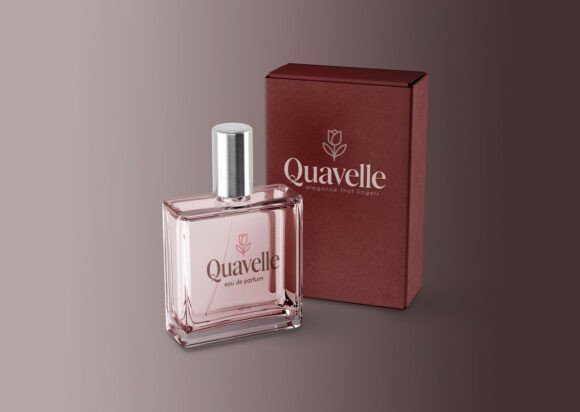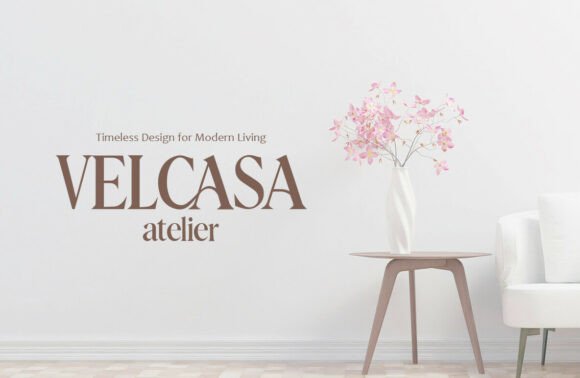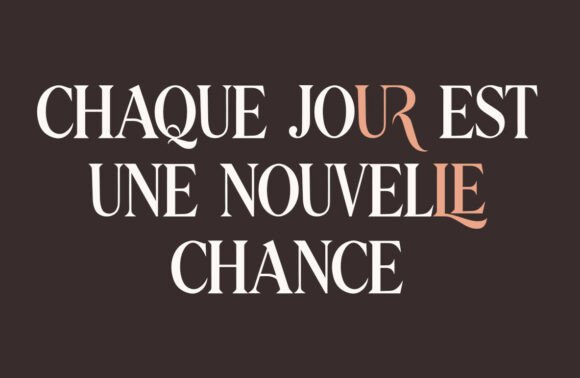
Introducing Arthivea Font: Elevate Your Design with Elegance and Sophistication
In the world of typography, a well-crafted font can make all the difference in elevating a design from ordinary to extraordinary. Arthivea, a modern serif typeface, is a stunning example of elegance, balance, and contemporary sophistication. This exquisite font is designed to bring a touch of luxury and refinement to any design project, making it perfect for discerning designers and crafters.
The Art of Arthivea: A Perfect Blend of Classic and Modern
Arthivea’s design is characterized by refined letterforms, graceful curves, and sharp serifs, which blend the classic beauty of serif fonts with a modern editorial touch. The result is a font that exudes timeless sophistication and elegance, making it ideal for high-end design projects. Whether you’re working on luxury branding, fashion labels, perfume packaging, or editorial layouts, Arthivea is the perfect choice for designers who want to convey exclusivity and premium aesthetics.
Key Features of Arthivea Font
- Refined Letterforms: Arthivea’s letterforms are meticulously crafted to convey a sense of elegance and refinement.
- Graceful Curves: The font features smooth, flowing curves that add to its sophisticated and luxurious feel.
- Sharp Serifs: Arthivea’s serifs are carefully designed to provide a precise, high-end look that elevates any design.
- Stylish Character Shapes: The font’s character shapes are designed to create a distinctive and timeless appearance.
Perfect for Luxury Design Projects
Arthivea is specifically designed for designers who want to create high-end designs that exude luxury and exclusivity. Its stylish character shapes and refined letterforms make it perfect for:
- Luxury Branding: Arthivea is ideal for creating high-end brand identities that convey sophistication and elegance.
- Fashion Labels: The font’s modern serif design makes it perfect for fashion labels that want to convey a sense of style and luxury.
- Perfume Packaging: Arthivea’s elegant design makes it a great choice for perfume packaging that requires a sophisticated and high-end look.
- Editorial Layouts: The font is perfect for editorial layouts, such as magazines and newspapers, where a touch of elegance and sophistication is required.
- Logos: Arthivea is a great choice for creating logos that require a distinctive and memorable design.
- Invitations: The font’s refined design makes it perfect for creating elegant and sophisticated invitations.
Why Choose Arthivea Font?
Arthivea offers a unique combination of elegance, sophistication, and versatility, making it an excellent choice for designers and crafters. Here are just a few reasons why you should choose Arthivea:
- Timeless Design: Arthivea’s design is timeless and will not go out of style, ensuring that your designs remain relevant for years to come.
- Versatility: The font is versatile and can be used for a wide range of design projects, from luxury branding to editorial layouts.
- Elegance: Arthivea exudes elegance and sophistication, making it perfect for designers who want to create high-end designs.
- Distinctive: The font’s stylish character shapes create a distinctive appearance that sets it apart from other fonts.
In conclusion, Arthivea font is a stunning example of modern serif typography, offering a perfect blend of elegance, balance, and contemporary sophistication. Its refined letterforms, graceful curves, and sharp serifs make it perfect for luxury design projects, such as luxury branding, fashion labels, perfume packaging, and editorial layouts. Whether you’re a designer or crafter, Arthivea is an excellent choice for anyone looking to create high-end designs that exude exclusivity and premium aesthetics.